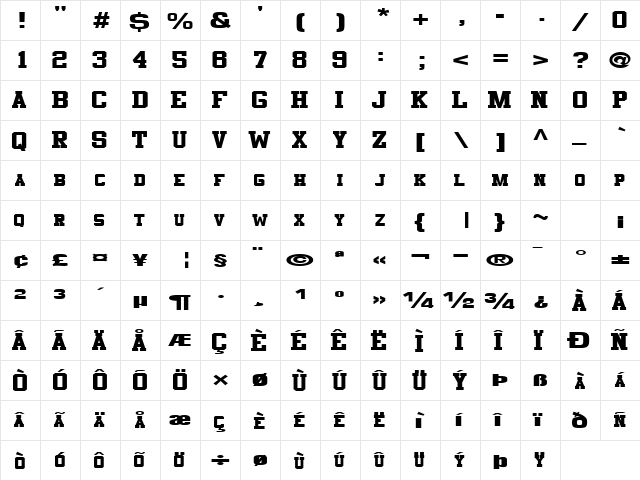
CosmicFlushText8 Regular Font Preview
CosmicFlushText8 Regular
CosmicFlushText8 Regular Font Details
Design Context for CosmicFlushText8 Typeface
CosmicFlushText8 is a composed and adaptable typeface that performs quietly and consistently across a wide range of design contexts.